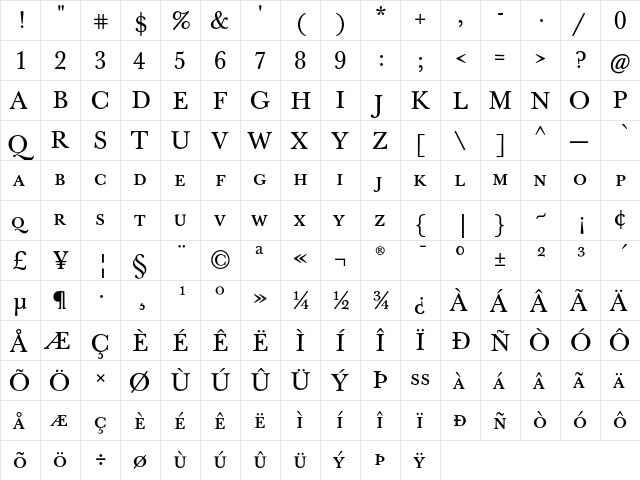
J Baskerville T Caps Regular
Design Context for J Baskerville T Caps Typeface
J Baskerville T Caps is a composed and adaptable typeface that performs quietly and consistently across a wide range of design contexts.
Pro Tip: Use J Baskerville T Caps in both headline and body roles to test its range before committing to a single application.